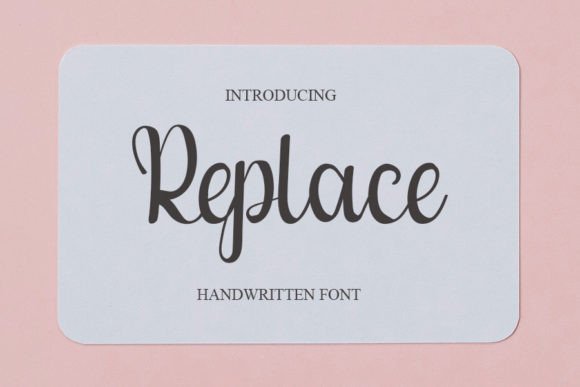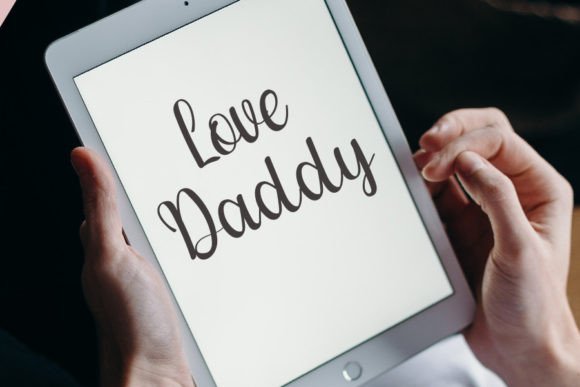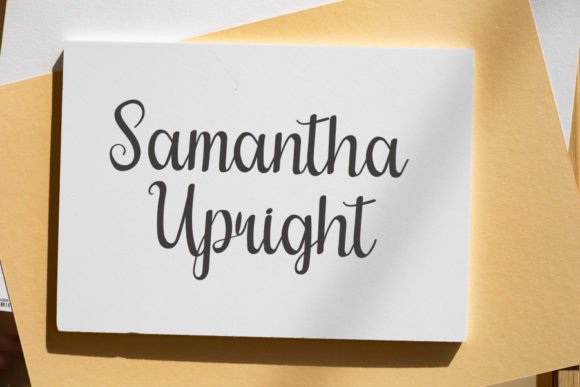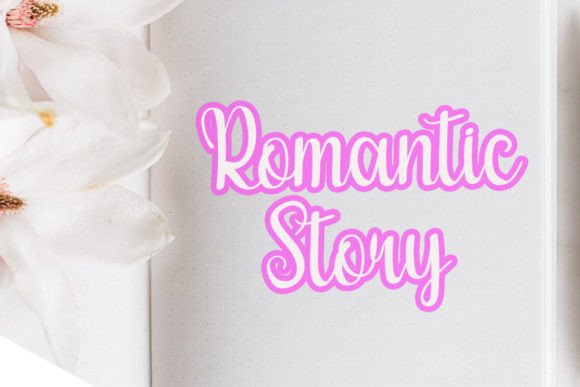
About Replace Font
Replace a cool handwritten font with a modern vibe and spotless form, inspired by classic calligraphy. Not too thin and not too thick, balanced and varied, this font was designed to enhance the beauty of your projects.